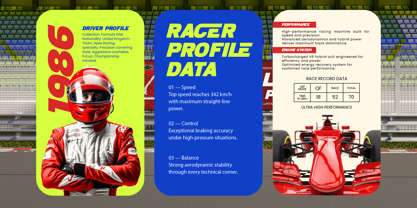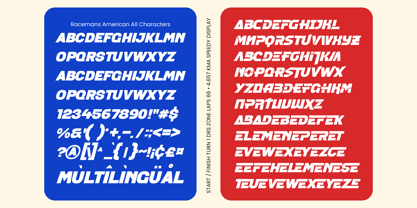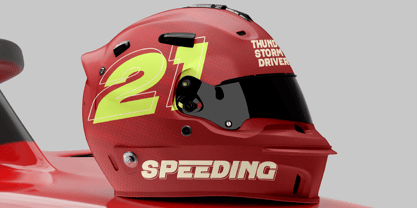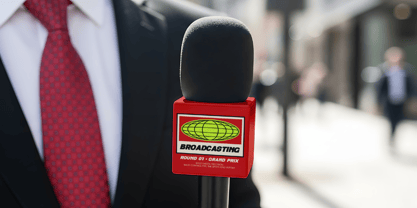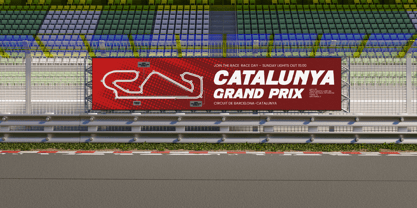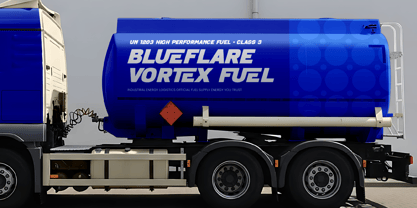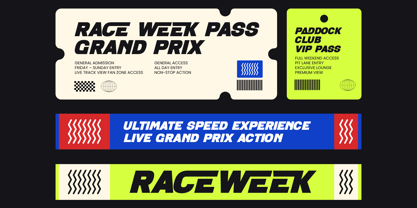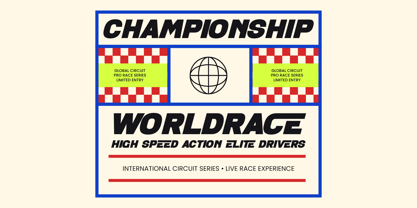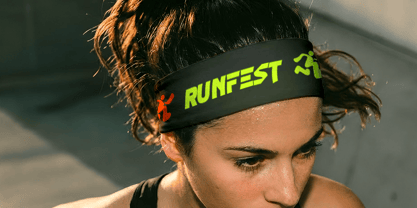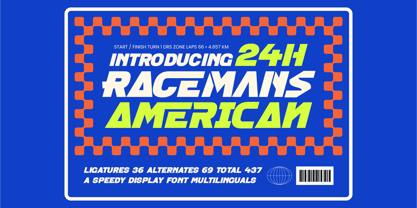
Racemans American
by Timelesstype Studio
The Racemans American Font Family was designed by Heru Utama Putra and published by Timelesstype Studio. Racemans American contains 2 styles and family package options. More about this family
Racemans American – Speedy Display Font
Racemans American is a dynamic and bold display font designed to evoke the high energy and speed associated with racing and competitive sports. With a strong, athletic look, this font is perfect for projects that require a sense of movement, power, and excitement. It features 36 ligatures, 69 alternates, and a total of 437 glyphs, making it a versatile and impactful choice for everything from logos to headlines.
Ideal for branding, sports events, esports, and other high-speed visuals, Racemans American brings a sense of immediacy and action to any design. Its sharp edges and futuristic design elements make it a standout choice for digital and print media alike, offering a strong visual impact while maintaining readability. This font is perfect for those looking to add a sleek, fast-paced touch to their designs.
Racemans American